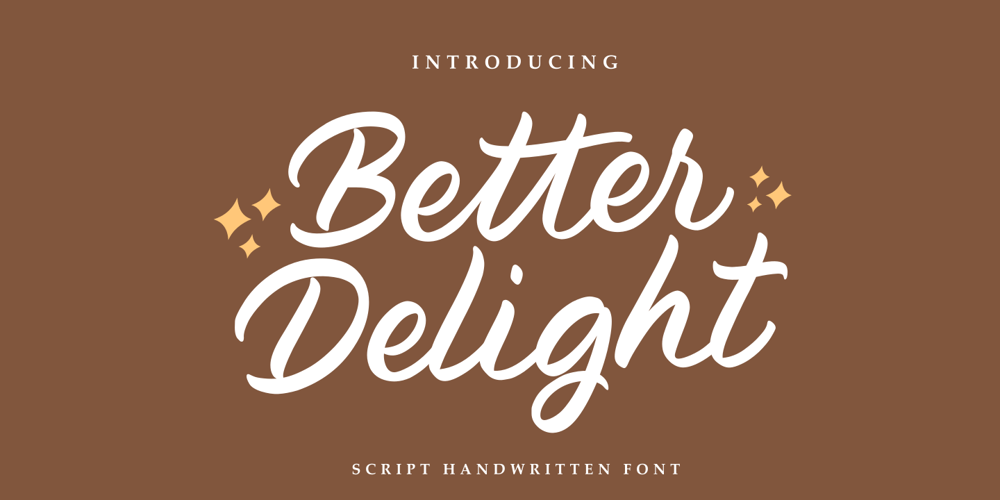
Better Delight Font Family was designed by Doni Purwoko and published by Zeenesia Studio. Better Delight contains 1 styles and family package options. Better Delight – Handwritten FontBetter Delight is a handwritten script font with a simple and classy style, this font is great for your next creative projects such as watermark on photography, logo design, wedding, invitation, quotes, book cover, business card, and many other design project. From business cards to photo watermarks.